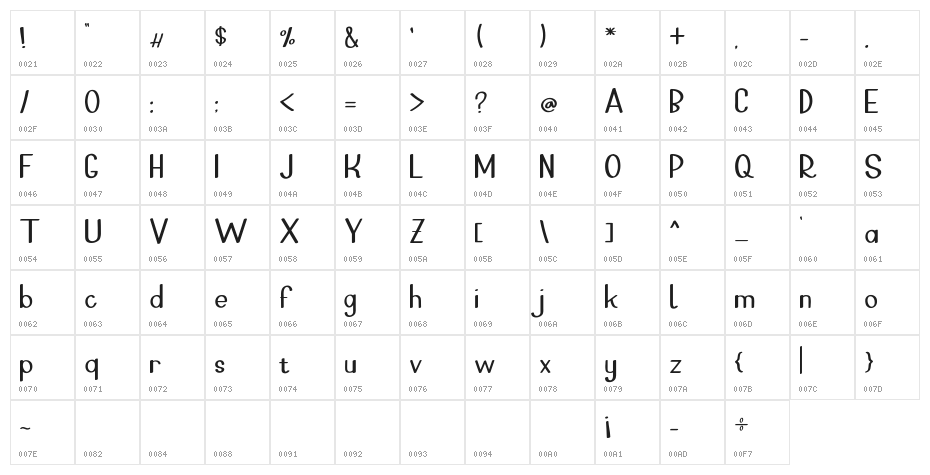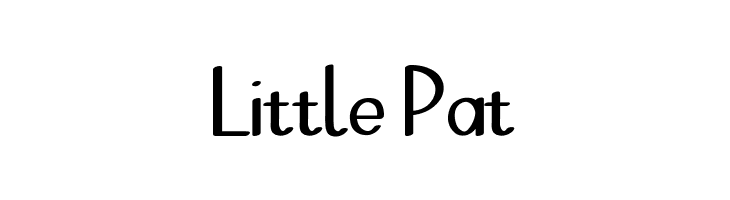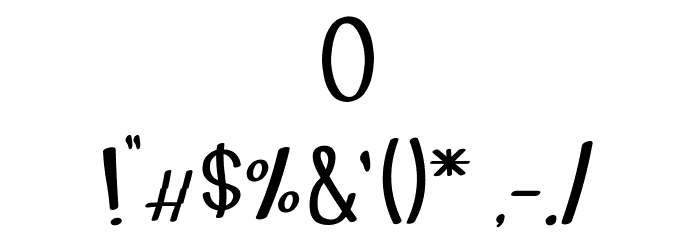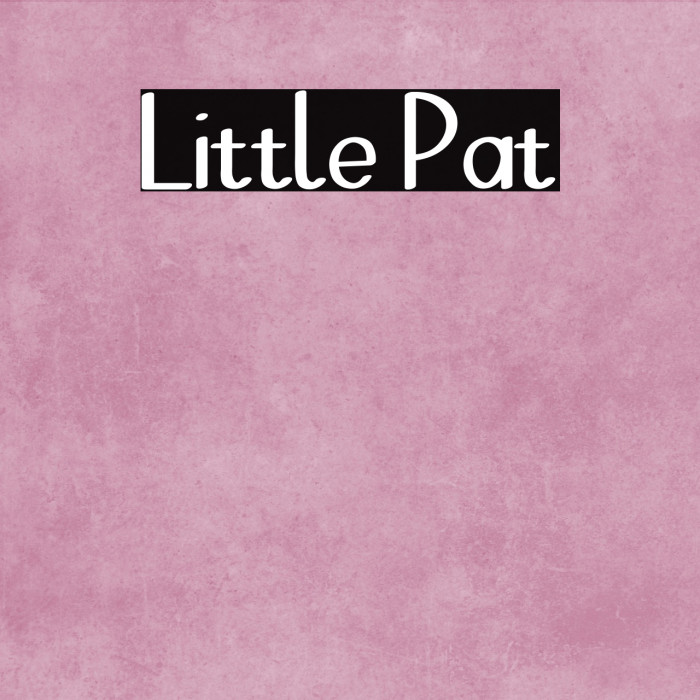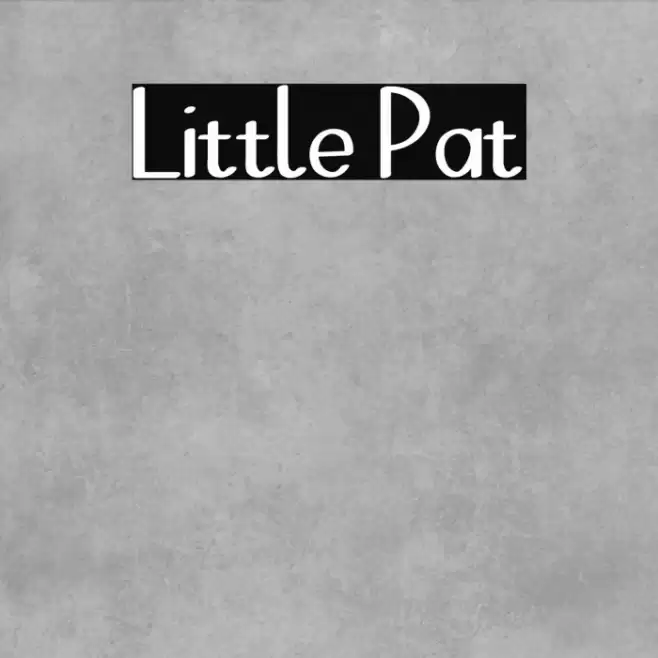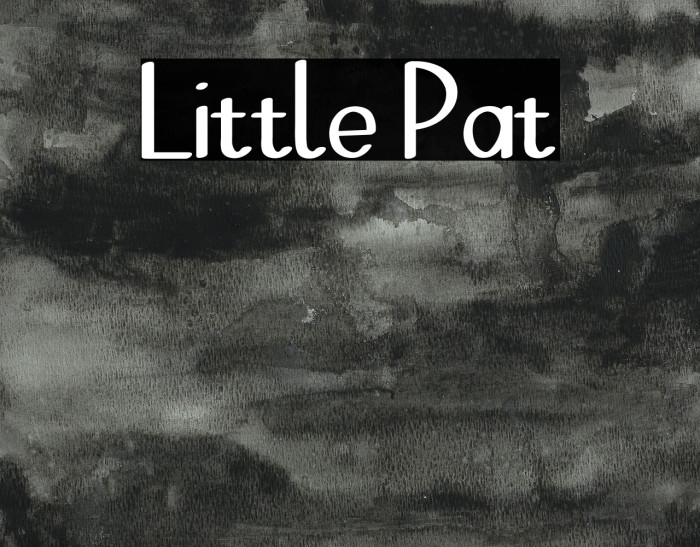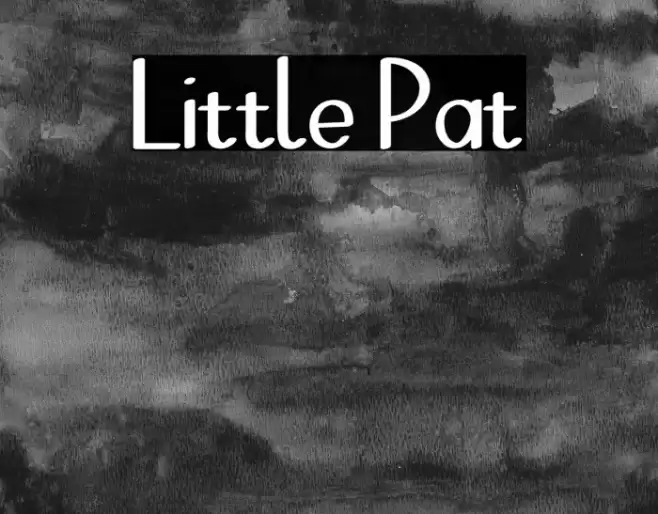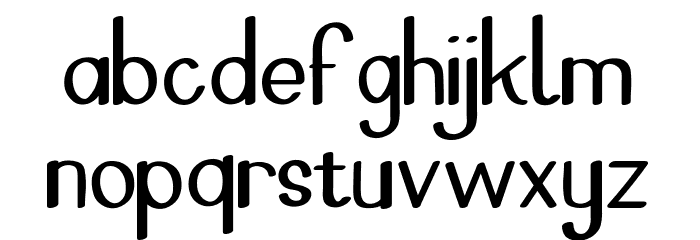
Little Pat Font
Little Pat Description
This font features a playful and whimsical style, characterized by its rounded and slightly irregular letterforms. The uppercase letters are bold and prominent, while the lowercase letters maintain a consistent flow with a touch of quirkiness. The numerals are clear and easy to read, complementing the overall design. Special characters are well-integrated, maintaining the font's unique personality. The font's design is approachable and friendly, making it suitable for projects that aim to convey a sense of fun and creativity.
| Overall Style | Playful |
| Use Case | Headlines, Logos, Creative projects |
| Proposed Projects | Ideal for children's books, playful branding, greeting cards, and creative posters. |